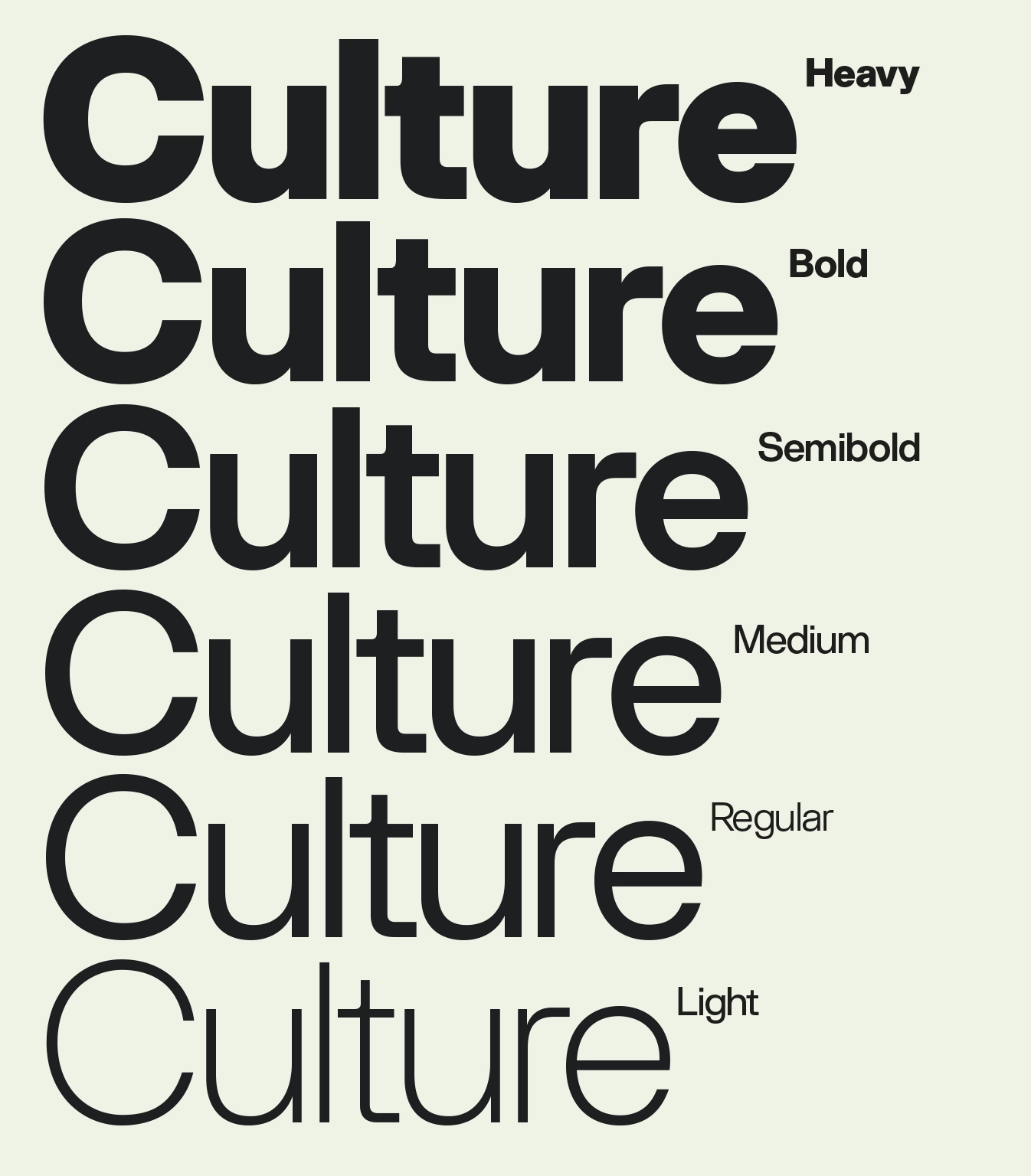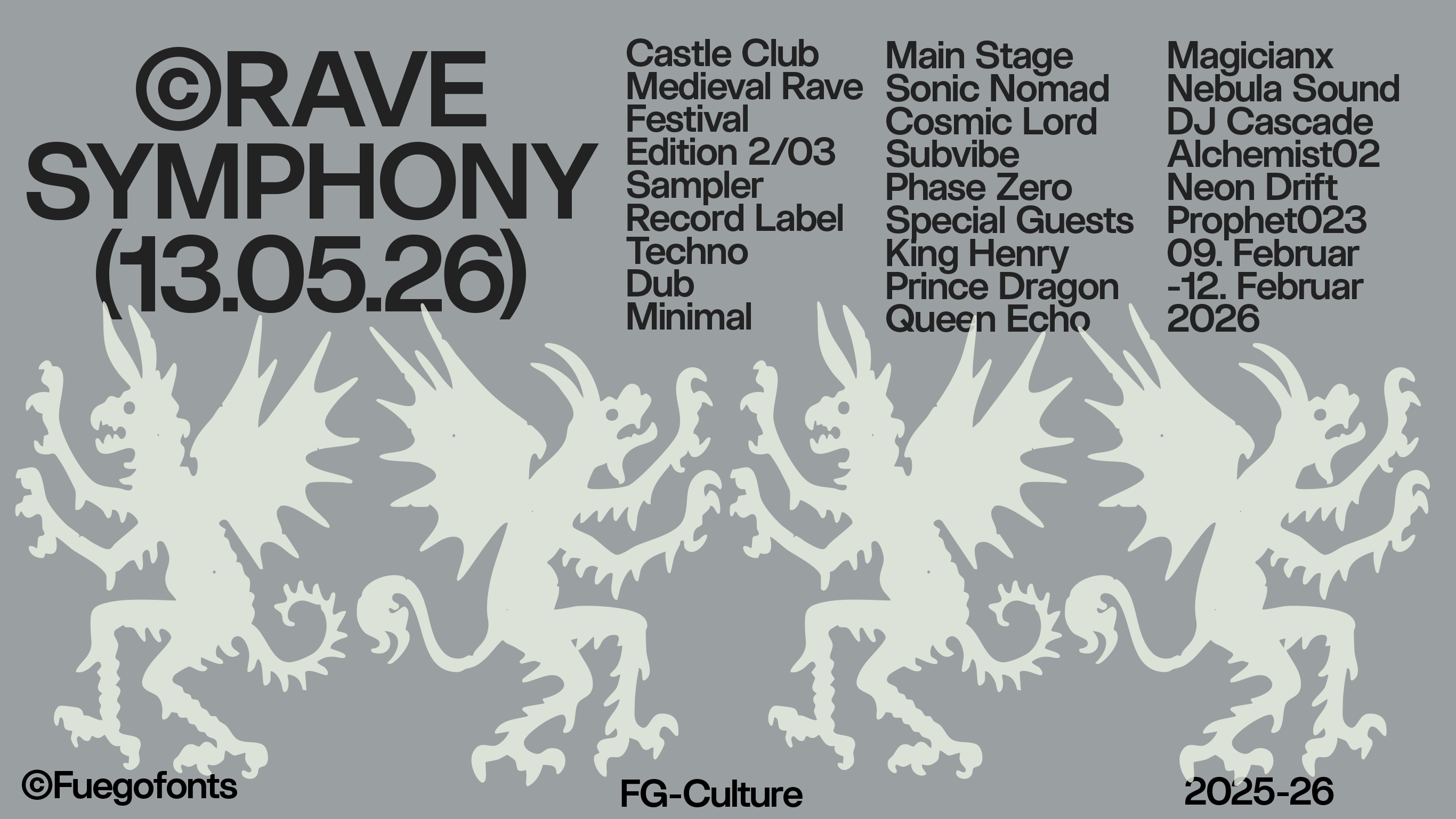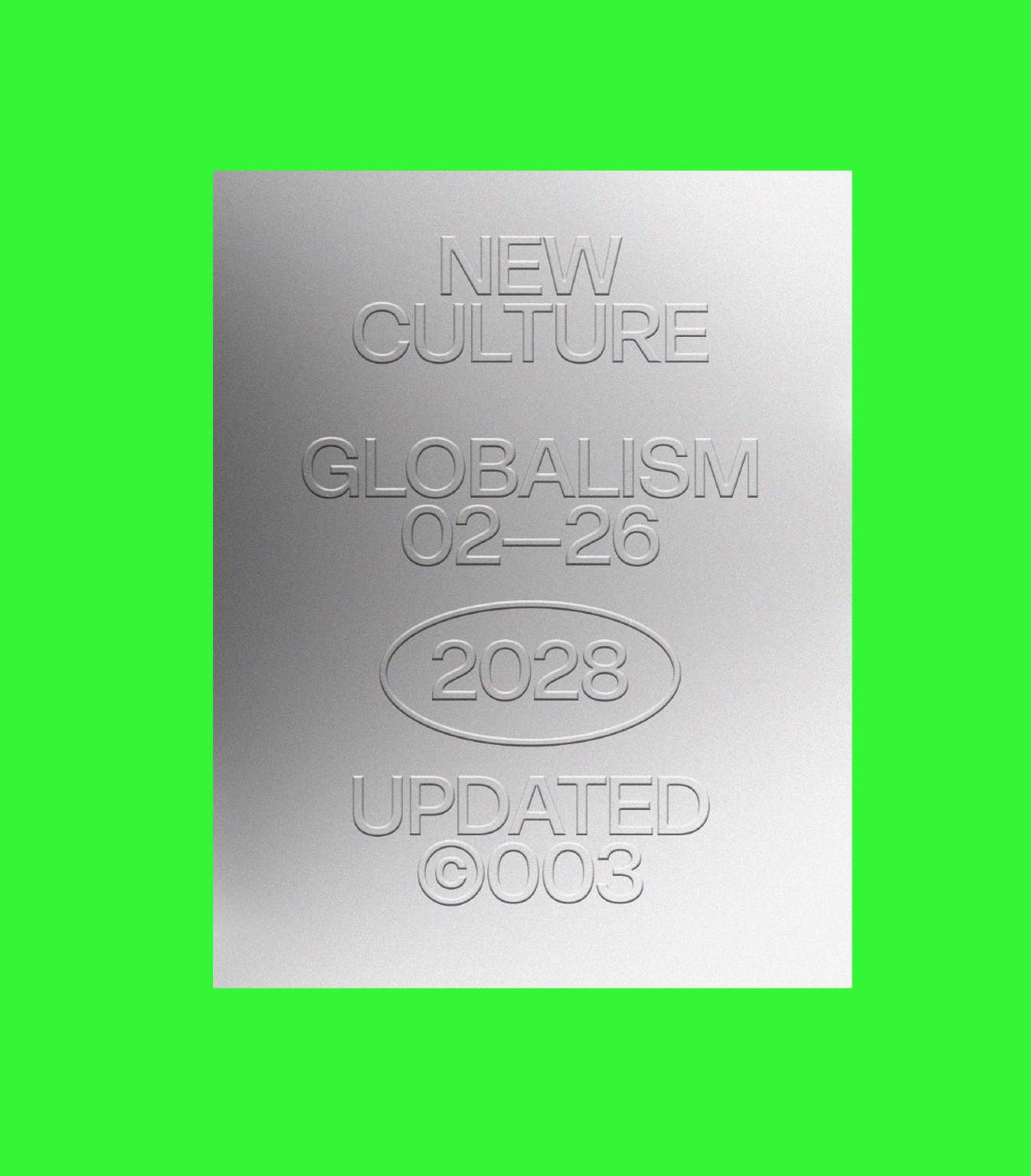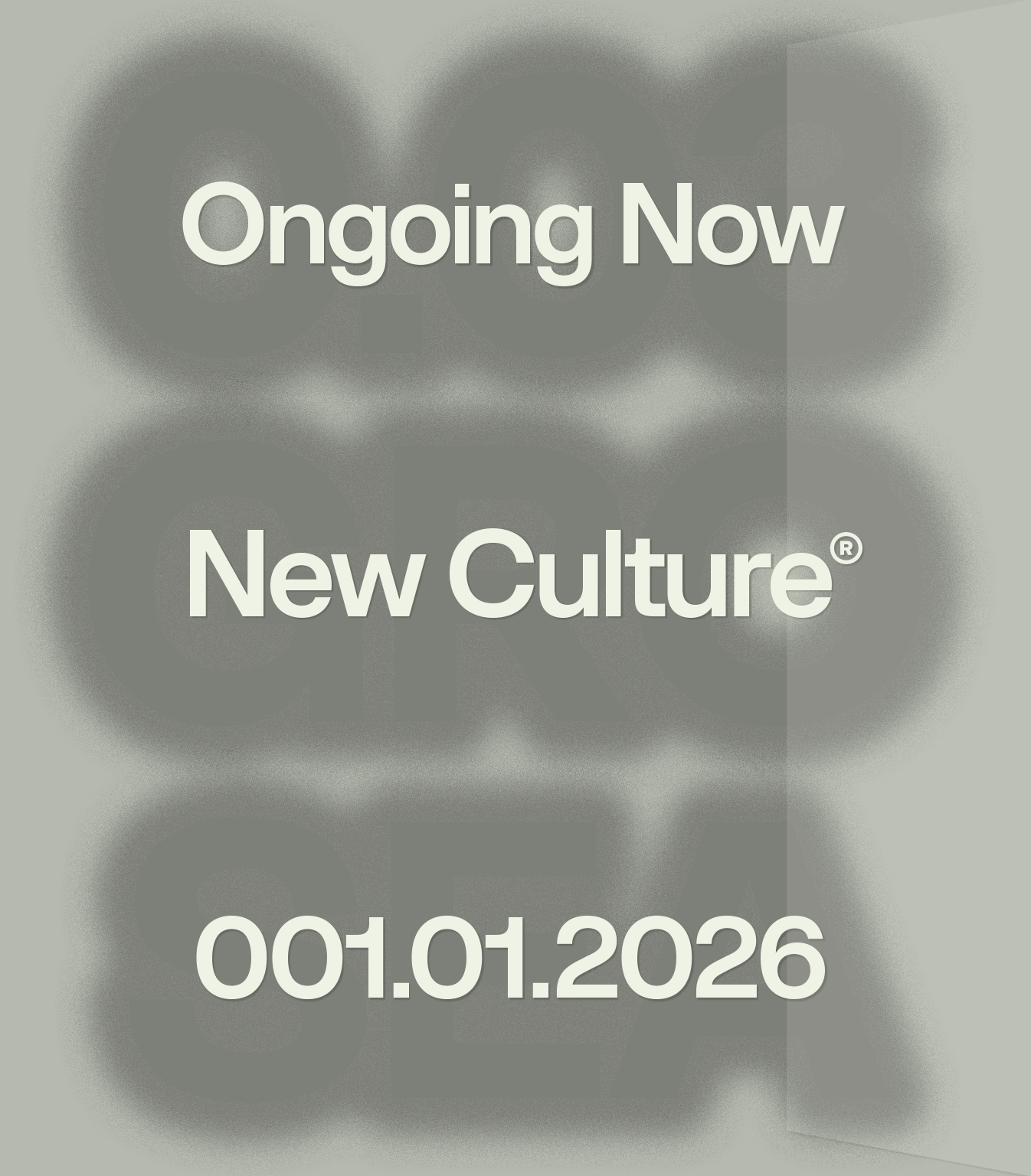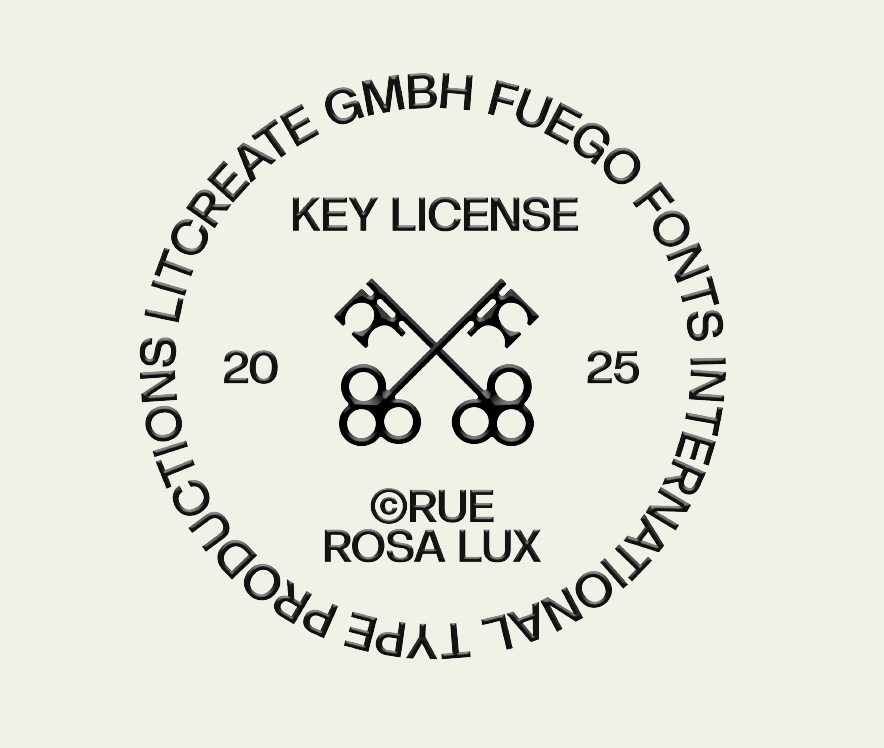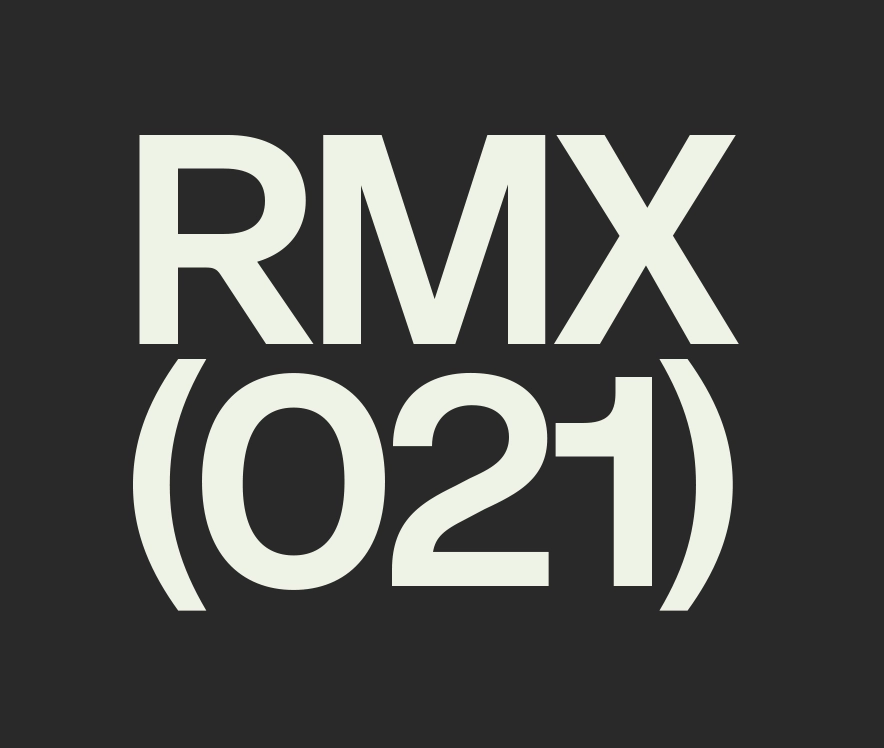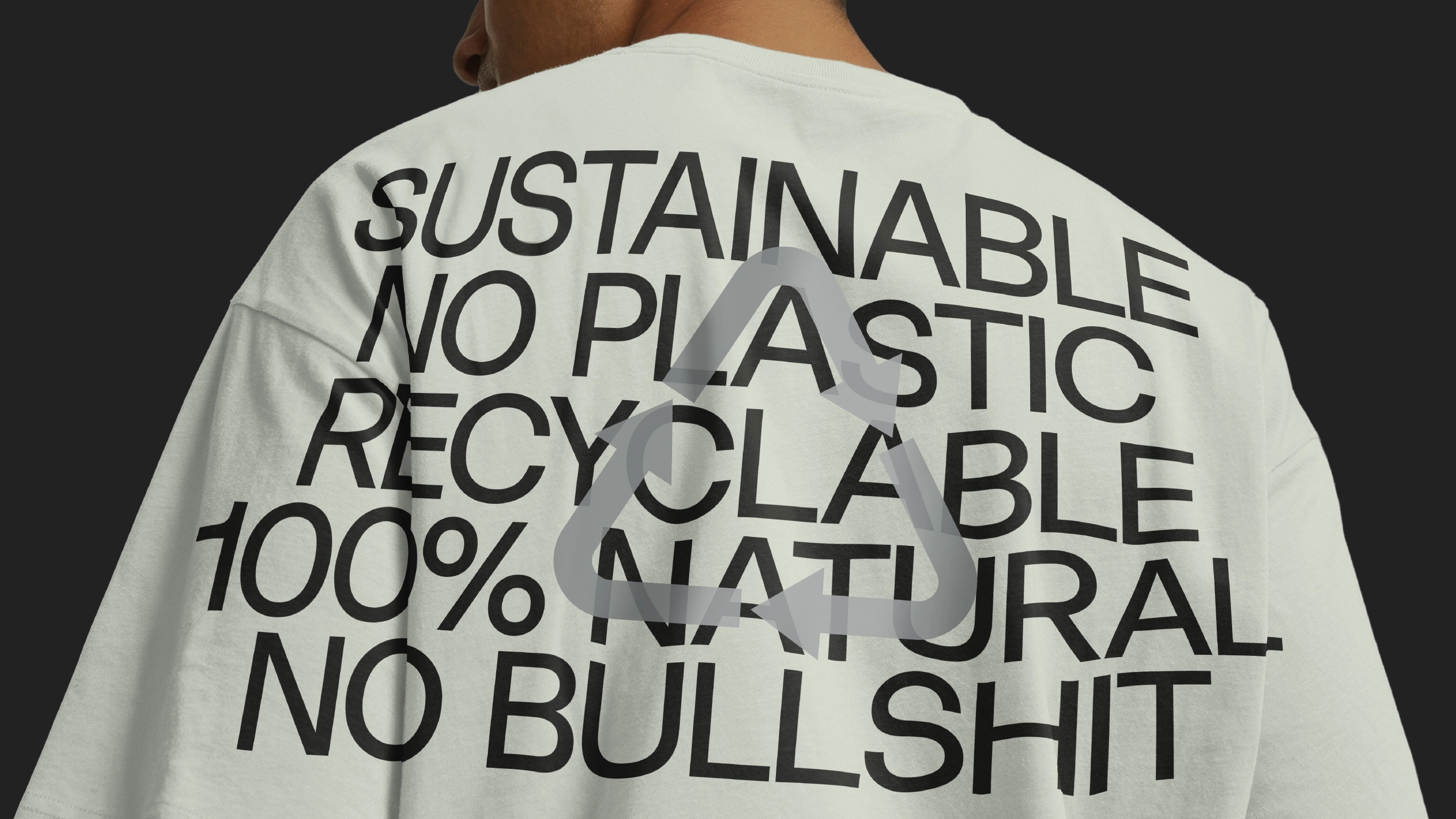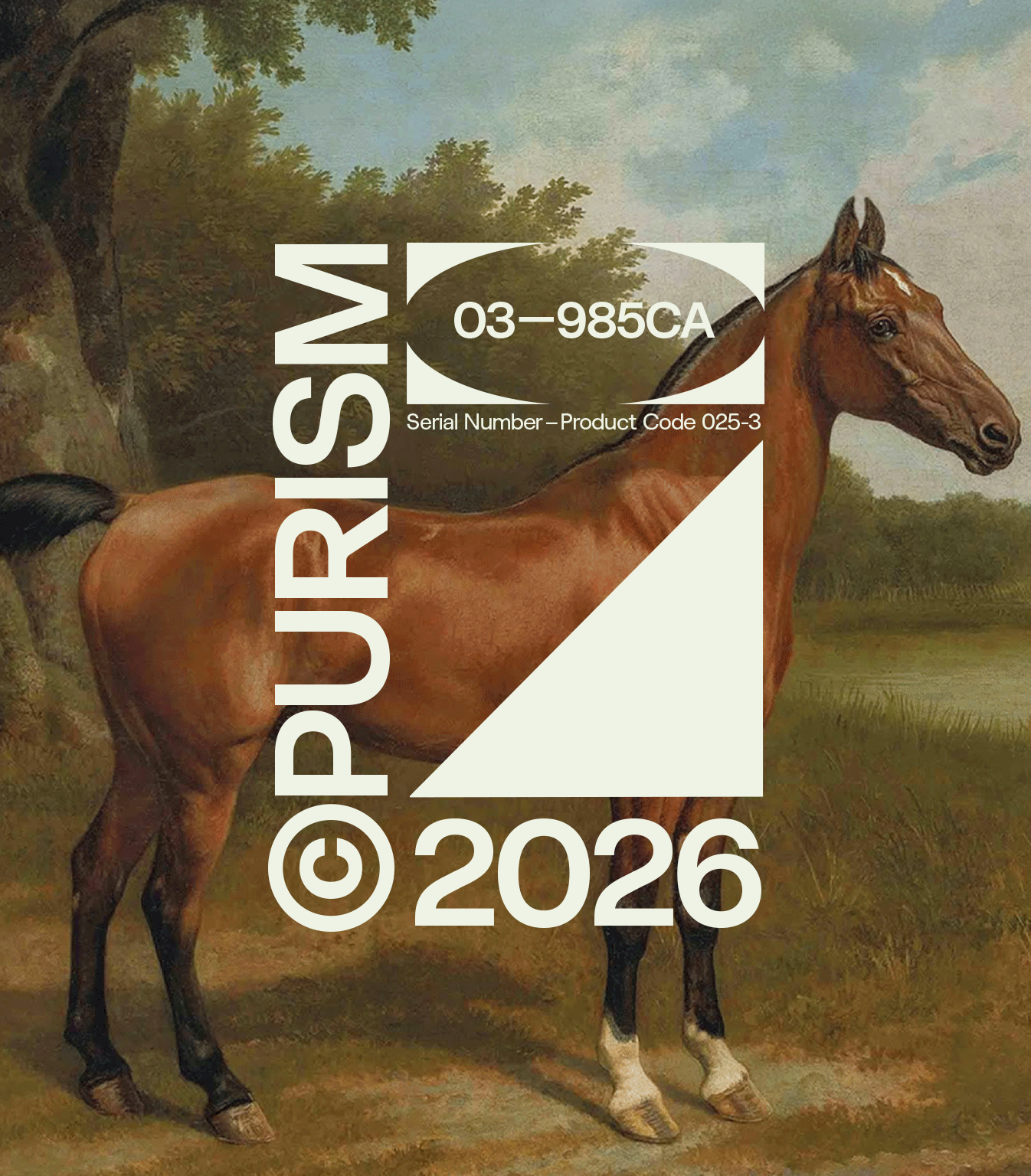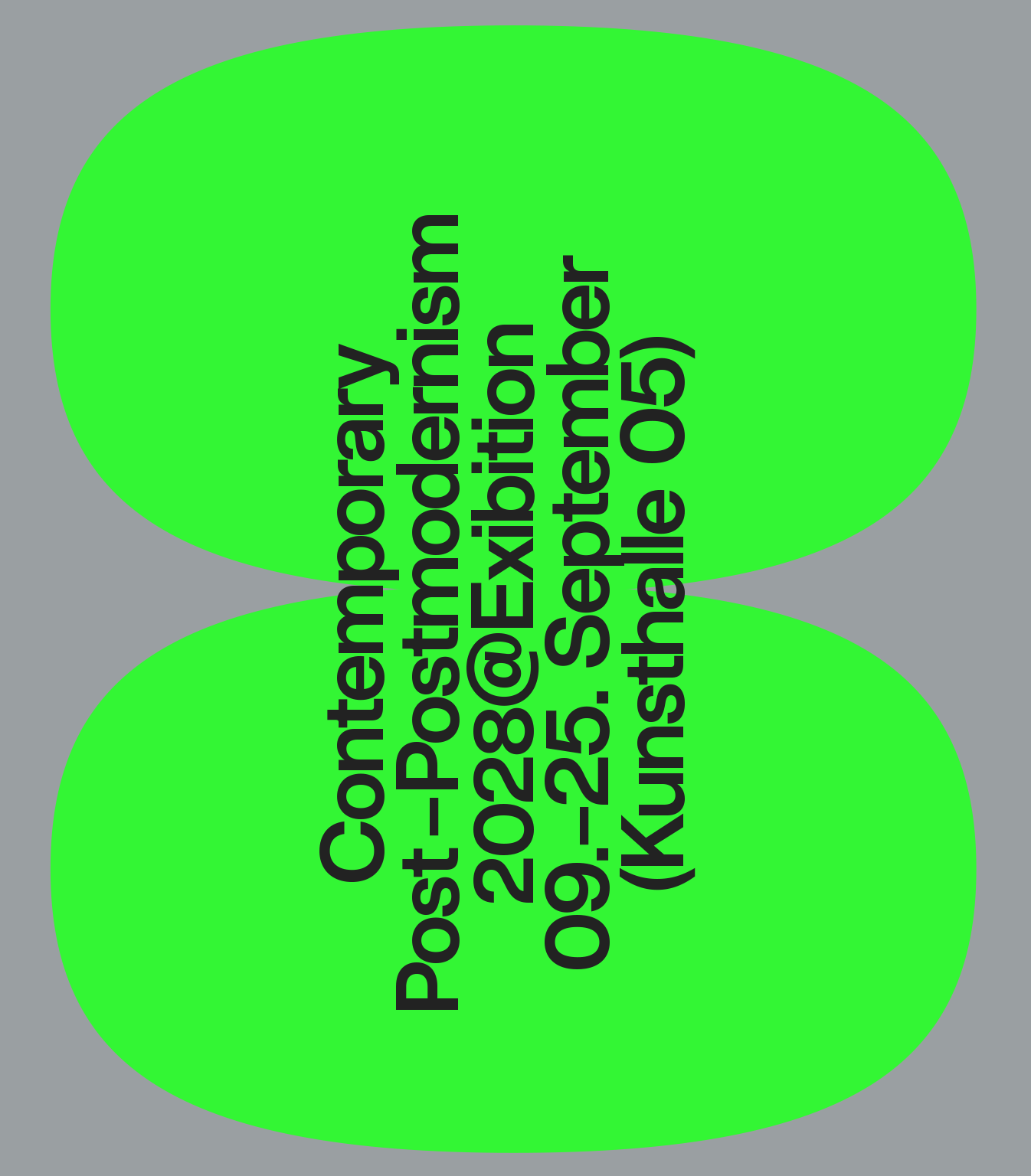
Culture
Time to redefine the norm. Culture is a versatile type family, built to do everything and do it beautifully. Combining clarity and character, it is a type system designed for long and short copy alike. Culture is confident, yet infinitely adaptable - equally at home in brand worlds, interfaces, and editorial spaces. This is for brands with substance, character and vision. For those who stay relevant and shape the culture.
12 fonts available including italics